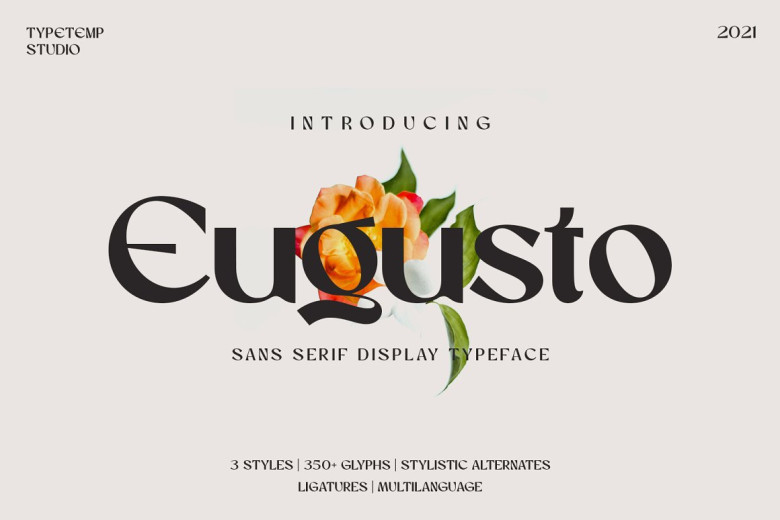
Eugusto Font
Eugusto is a Display Typeface, It’s an elegant and fashionable font with a contemporary aesthetic, featuring ligatures and alternative fonts for use in creating eye-catching posters, quotes, logos and blog posts as well as designing branding projects, magazine, images wedding invitations and much more.
Eugusto Display Font